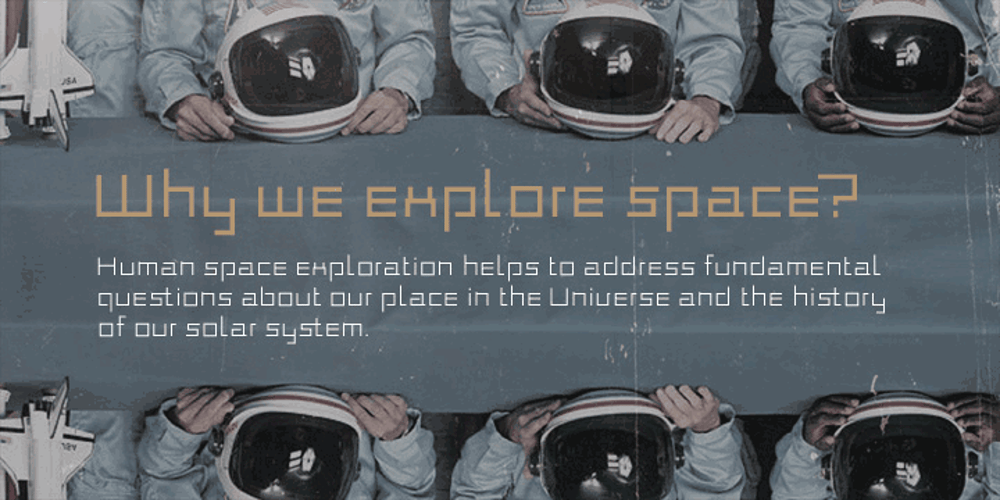
Construct Font Family was designed by Tobias Baggemann and published by Breitenlauf. Construct contains 2 styles and family package options. Construct is a technically based headline font that can also be used as body text. The font has some new ligatures that are automatically applied. Construct particularly suitable for headlines which should have a urban and technical character.